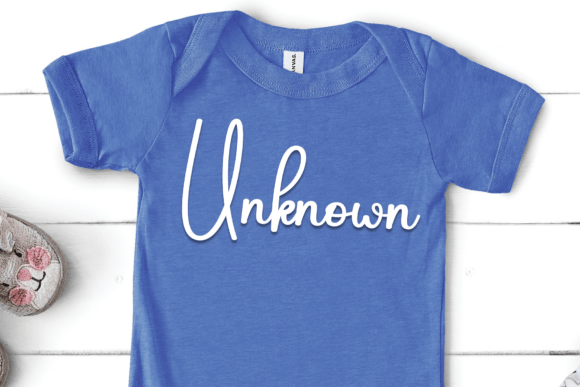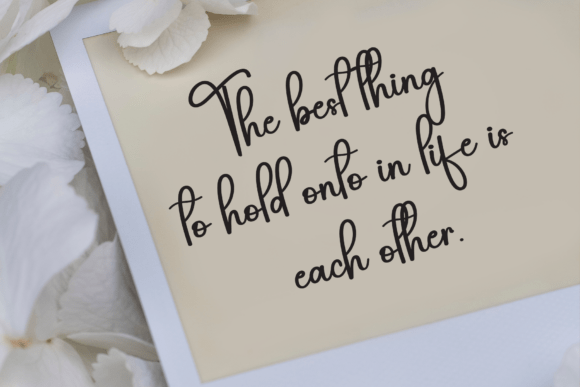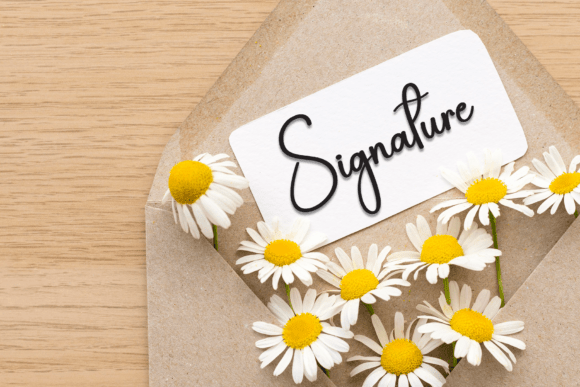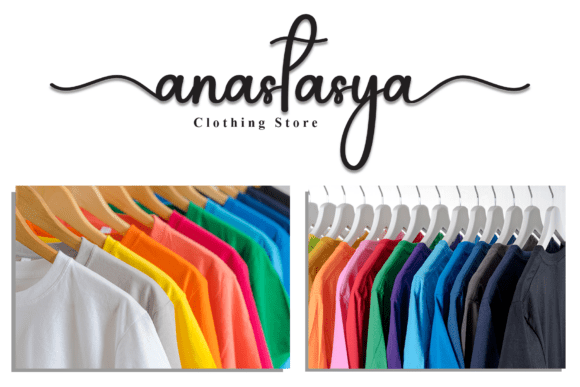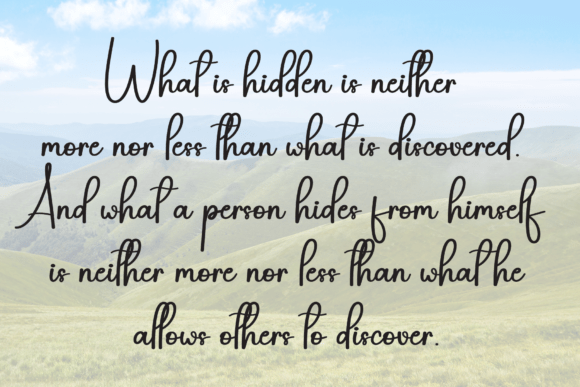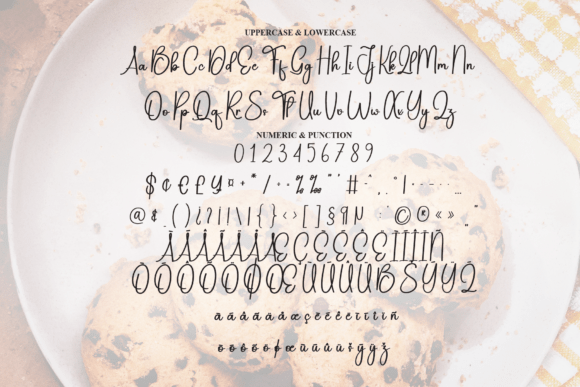
Cookies Font: Elevate Your Designs with a Stylish Handwritten Script
In the world of typography, fonts play a crucial role in conveying the tone and personality of a design. For designers and crafters looking to add a touch of elegance and playfulness to their projects, Cookies Font is an excellent choice. This stylish handwritten script font seamlessly blends modern sophistication with a charming, personal feel, making it perfect for a wide range of applications.
The Unique Charm of Cookies Font
Cookies Font stands out with its fluid strokes and charming curves, which bring a sense of warmth and creativity to any design. Its handwritten nature gives it a personal and approachable feel, making it ideal for projects where a touch of personality is desired. Whether you’re working on a logo, packaging, invitation, or any other design project, Cookies Font can help you achieve a unique and captivating look.
Key Features of Cookies Font
- Modern Elegance: Cookies Font boasts a modern aesthetic that fits well with contemporary design trends. Its clean lines and balanced proportions make it versatile for various design applications.
- Playful Touch: The font’s playful elements add a whimsical charm, making it perfect for designs that require a bit of personality and flair.
- Fluid Strokes: The fluidity of the strokes in Cookies Font gives it a dynamic and expressive feel, allowing it to convey emotion and creativity.
- Charming Curves: The curves in Cookies Font are meticulously crafted to provide a smooth and elegant look, enhancing the overall aesthetic of your designs.
Ideal Applications for Cookies Font
Cookies Font’s versatility makes it suitable for a variety of design projects. Here are some of the ideal applications:
- Logos: Create memorable and stylish logos that stand out with Cookies Font. Its unique charm can help your brand identity leave a lasting impression.
- Packaging: Enhance your product packaging with a touch of elegance and playfulness. Cookies Font can help make your products more appealing on store shelves.
- Invitations: Whether it’s a wedding invitation, birthday party invite, or any other special occasion, Cookies Font can add a personal and sophisticated touch.
- Marketing Materials: Use Cookies Font in your brochures, flyers, and posters to give your marketing materials a fresh and modern look.
- Digital Content: Cookies Font is also great for digital content such as social media graphics, blog posts, and website headers, where it can help attract and engage your audience.
Tips for Using Cookies Font Effectively
To get the most out of Cookies Font, consider the following tips:
- Pair with Complementary Fonts: For maximum impact, pair Cookies Font with fonts that complement its style. A combination of a playful script font like Cookies with a clean sans-serif font can create a visually appealing contrast.
- Adjust Letter Spacing: Experiment with letter spacing to find the perfect balance for your design. Some projects may benefit from tighter spacing for a more compact look, while others may require more space for a clean and airy feel.
- Play with Colors: Don’t be afraid to experiment with different colors. Cookies Font looks great in bold and bright colors, but it can also convey elegance in more subdued tones.
Cookies Font is a versatile and stylish handwritten script font that can elevate your designs with its modern elegance and playful charm. Its fluid strokes and charming curves make it perfect for a wide range of applications, from logos and packaging to invitations and digital content. By incorporating Cookies Font into your projects, you can add a personal touch, convey sophistication, and create memorable designs that stand out.
Whether you’re a professional designer or a DIY crafter, Cookies Font is an excellent addition to your typography arsenal. Explore its creative possibilities and discover how it can transform your designs with its unique blend of style and personality.